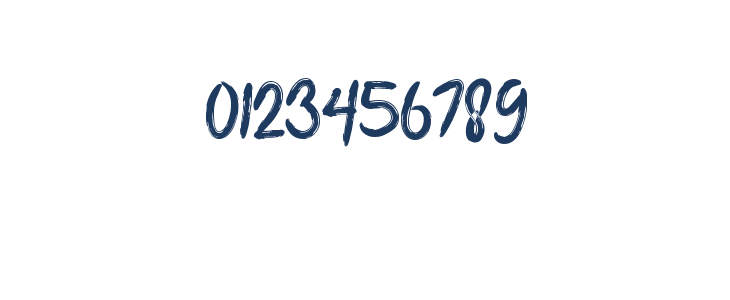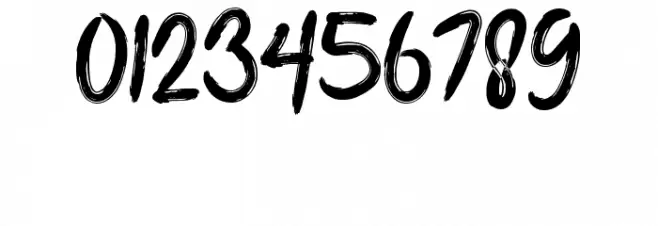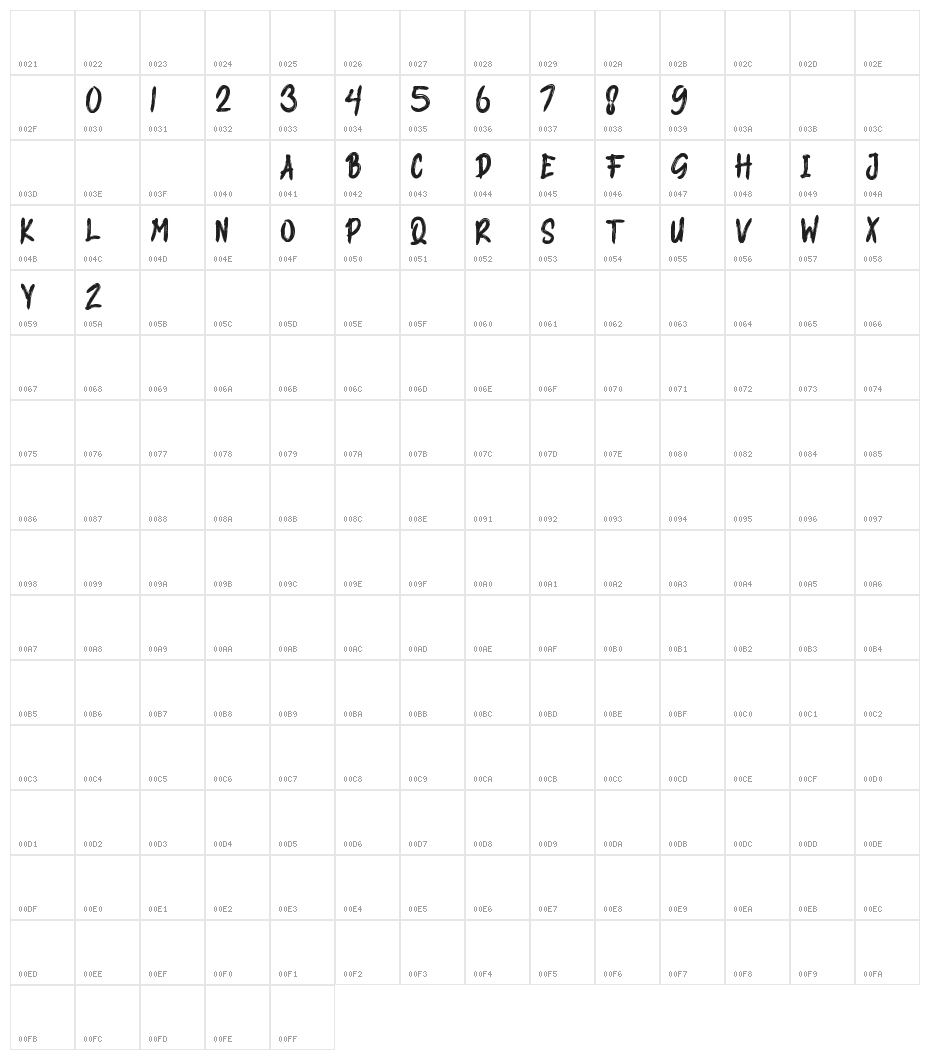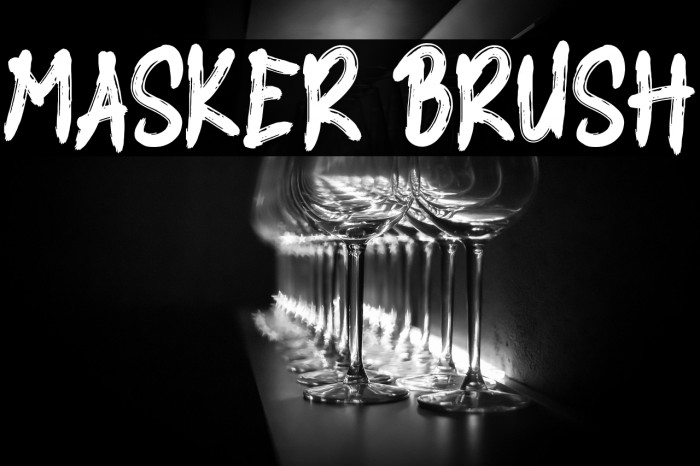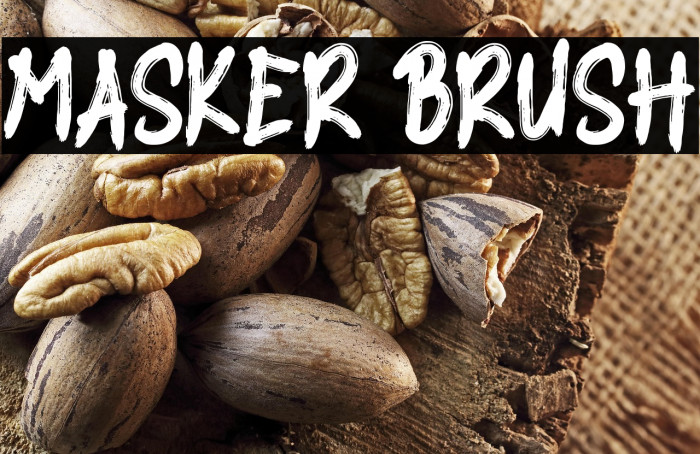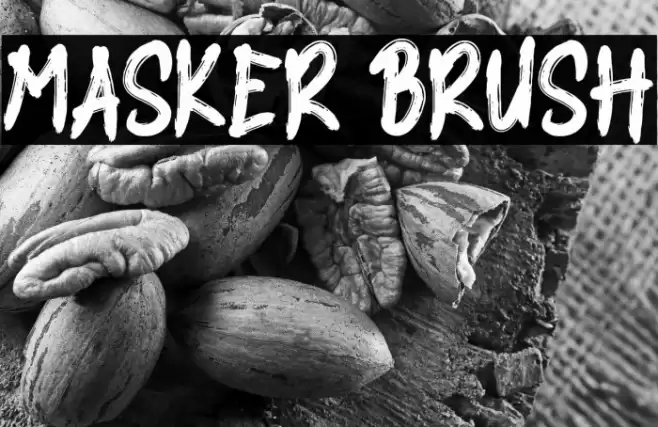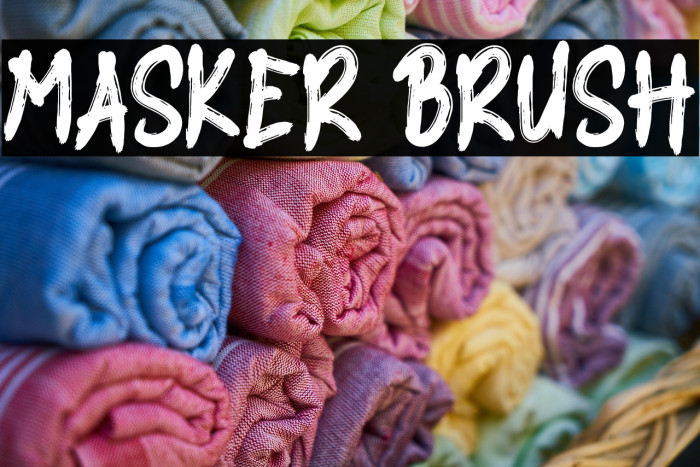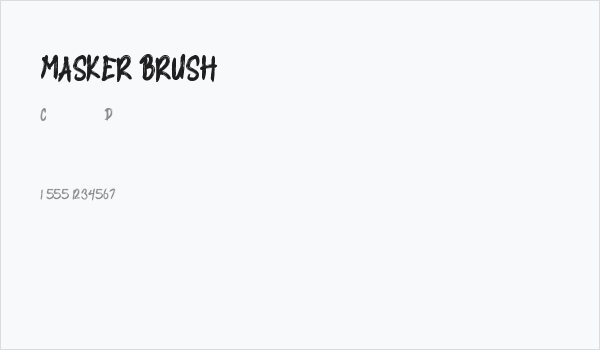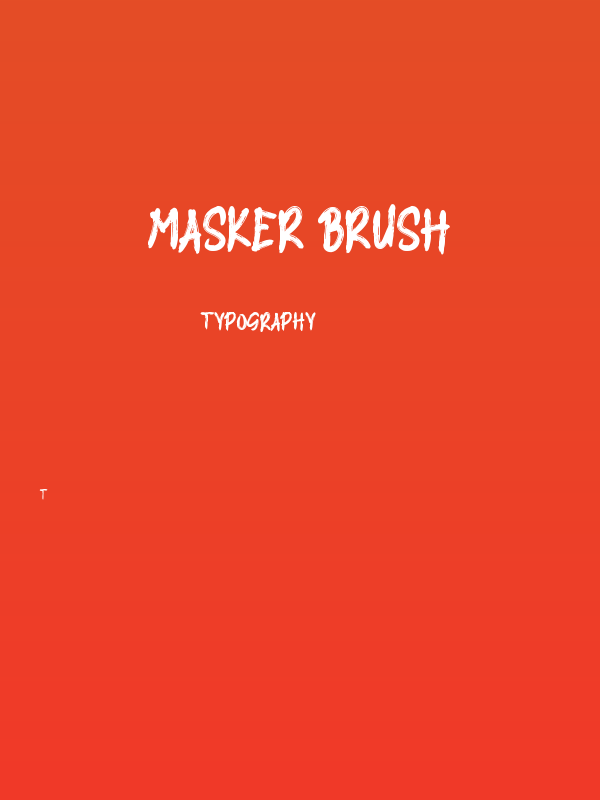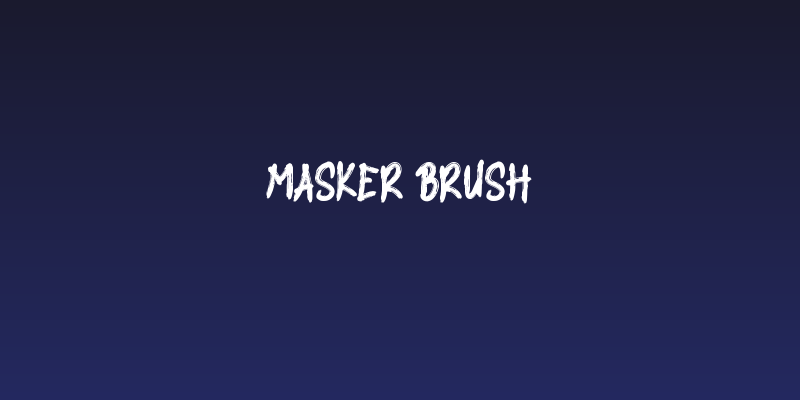
MASKER BRUSH Font
MASKER BRUSH Description
This font features a bold and dynamic brush style, characterized by its thick, expressive strokes and a hand-painted appearance. The letters exhibit a sense of movement and energy, with varying stroke widths that create a lively and artistic feel. The uppercase and lowercase letters maintain a consistent style, with a slightly irregular baseline that enhances the handwritten aesthetic. The numerals are equally bold, matching the overall style of the alphabet. This font is ideal for projects that require a personal touch or a creative flair, such as posters, branding, and artistic designs.